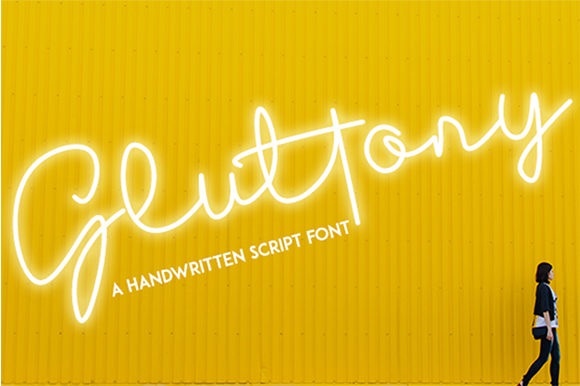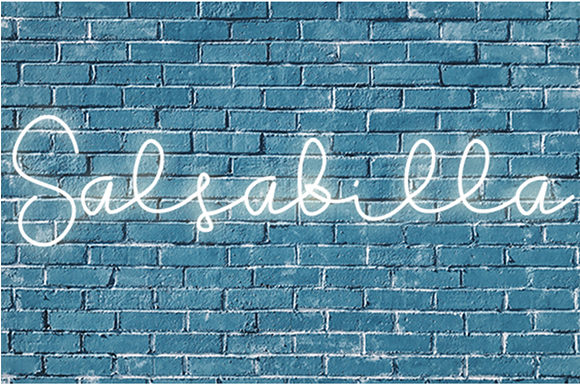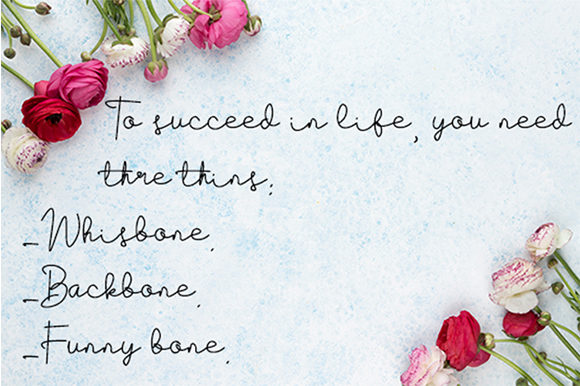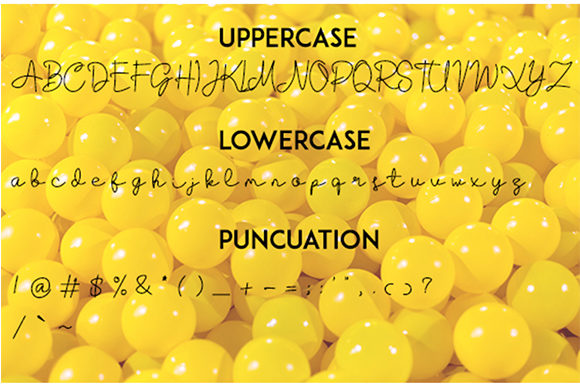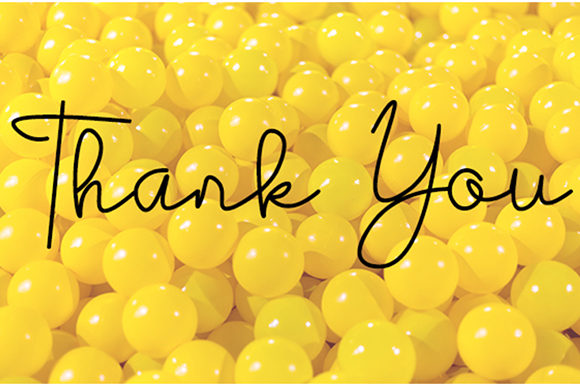
HomeScript FontsGluttony Font Script Fonts Gluttony Font FacebookXPinterestWhatsApp Gluttony Font Poster 2 Gluttony Font Poster 3 Gluttony Font Poster 4 Gluttony Font Poster 5 About Gluttony Font Gluttony is a beautiful handwritten font with a unique style. Use it to add a bold feel to any design project! DOWNLOAD ON CREATIVE FABRICAThis font is sold and delivered by Creative Fabrica. Font Canyon may earn a commission if you buy through this link. People also explored Bahari Font Cheboer Font Koala Font No Offense Font Highway Font Ankerisey Font Alishia Erittha Font Sallisa Font Pomorit Font 390 0 TagsGluttony Font Previous articleNew Horizons FontNext articleMoelya Font LEAVE A REPLY Cancel reply Comment: Please enter your comment! Name:* Please enter your name here Email:* You have entered an incorrect email address! Please enter your email address here Website: Save my name, email, and website in this browser for the next time I comment. Personal Use Free The Pottery Personal Use Free Read more about this font Jilliant Personal Use Free Read more about this font Vuldo Personal Use Free Read more about this font Houstonville Personal Use Free Read more about this font BLOG How to Install and Use Fonts on Windows, macOS, and Web Projects How to Install and Use Fonts on Windows, macOS, and Web Projects Fonts are a crucial part of design and branding. Whether you’re designing a... How to Cut Any Font on Cricut: Convert a Font to SVG (Free) Transform Your Website: Elevate Your Typography with 7 Best Web Font Generators Using Fonts in Digital Marketing: Tips to Strengthen Your Brand Identity